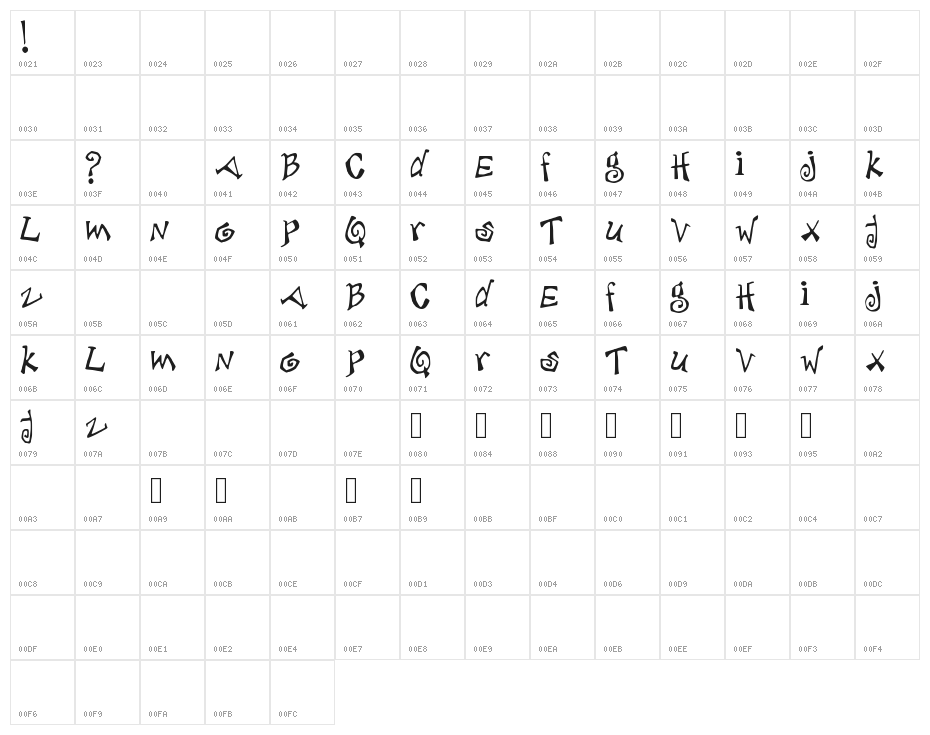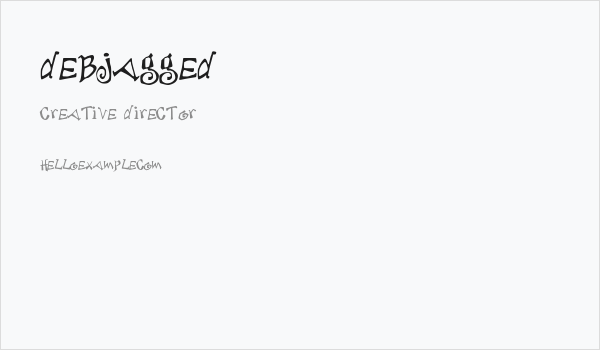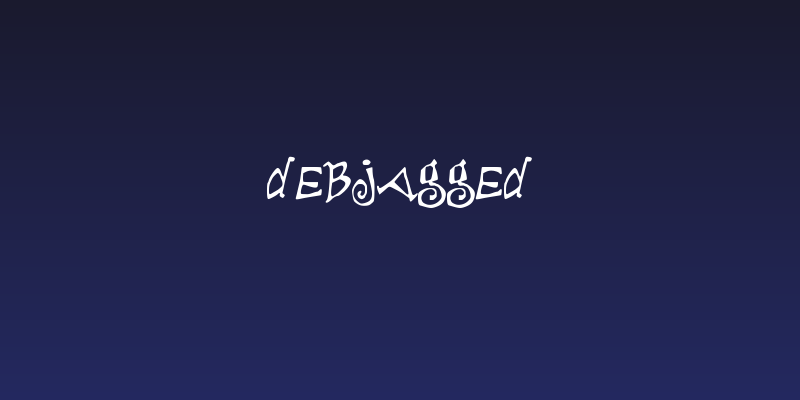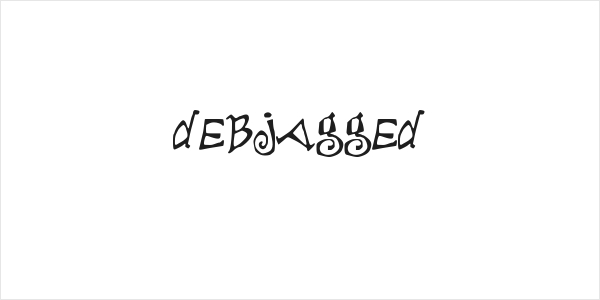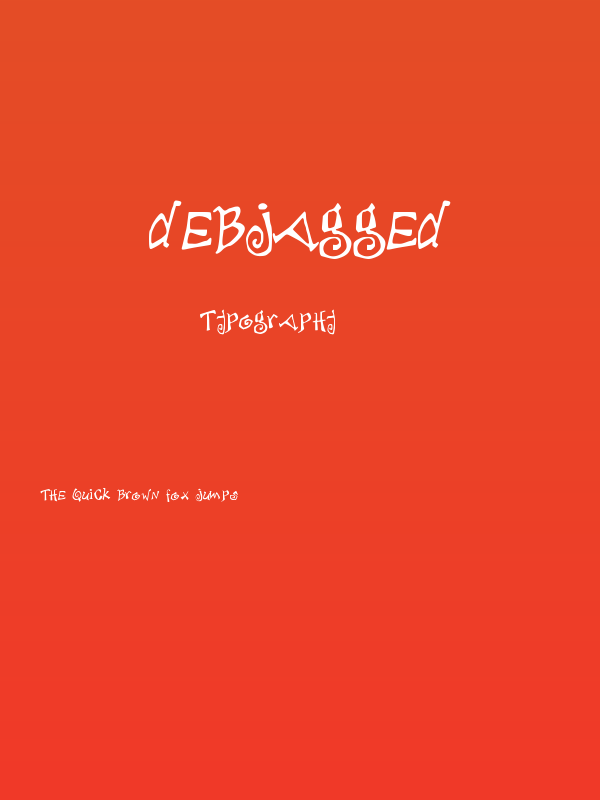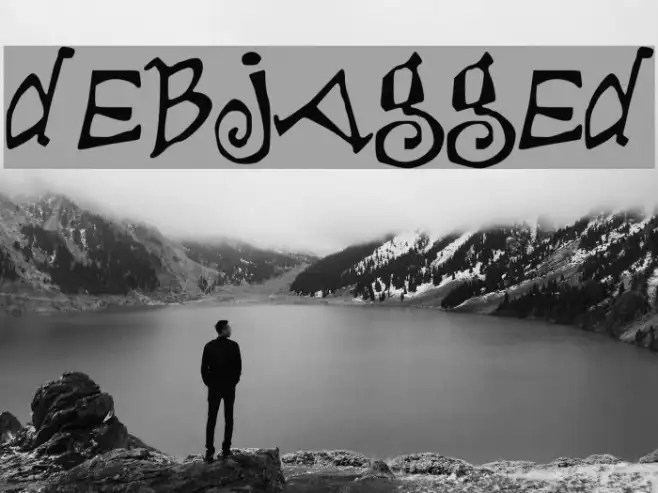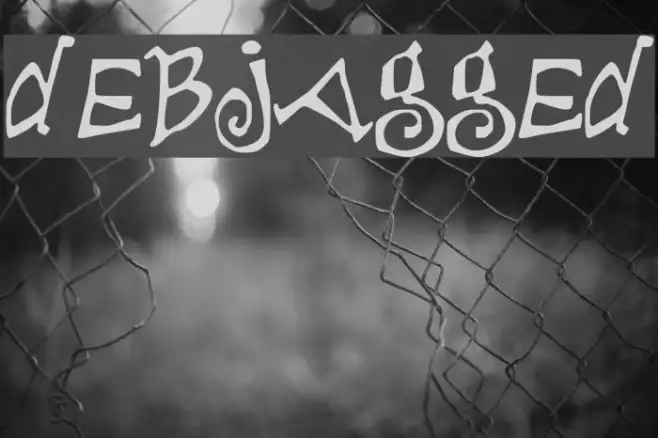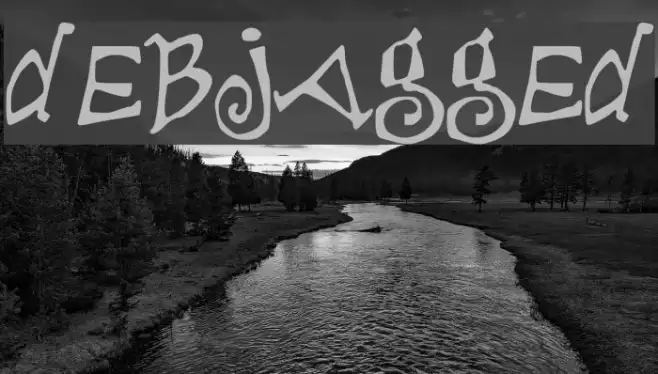
debjagged Font
debjagged Description
This font features a playful and whimsical design, characterized by its irregular and jagged letterforms. The uppercase letters exhibit a quirky style with exaggerated curves and angles, while the lowercase letters maintain a consistent yet unconventional appearance. The font includes unique elements such as spirals and swirls within certain characters, adding to its decorative nature. The numbers and special characters follow the same playful theme, making the font suitable for creative and informal applications. Its distinct style makes it stand out, offering a fun and artistic vibe.
| Overall Style | Whimsical |
| Proposed Projects | Ideal for children's book covers, playful posters, creative branding, and artistic invitations. |